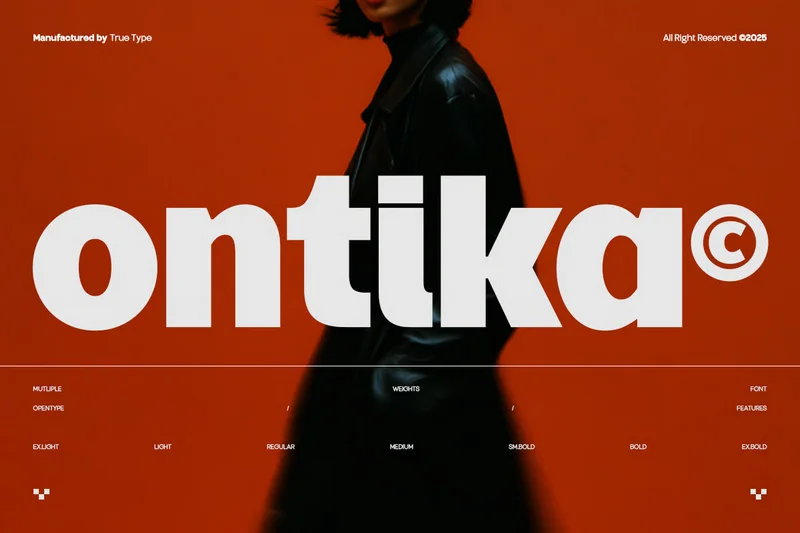
Ontika Sans Semi Display Font Family
Ontika is a modern sans serif semi-display typeface that combines clean structure with confident expression. Designed to be clean and functional, yet distinctive, it blends geometric balance with subtle quirks that give it charm and flexibility.
It’s a highly usable font family, offering multiple weights and styles to support diverse design needs — from branding and editorial work to digital interfaces and packaging.
Perfect for visual identities, headlines, logos, magazines, and interfaces, TBJ Ontika delivers clarity without sacrificing character. It’s a reliable tool for designers seeking modern aesthetics with a touch of originality.